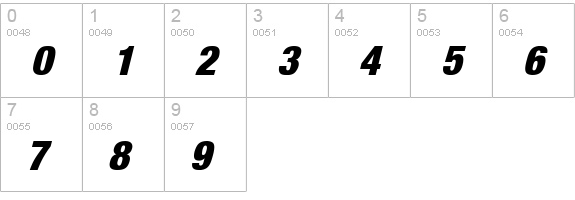
Acmo Display SSi Italic Font Details
Acmo Display SSi Italic is a distinctive, italic variant in the Acmo typeface family \xE2\x80\x94 well suited to design and typography projects.
Acmo Display SSi Italic font is a stylish and modern typeface that exudes sophistication and elegance. Its italicized design adds a touch of flair and personality to any project, making it perfect for headings, quotes, and other display purposes. This versatile font is free to download at FontsMarket.com, allowing you to easily incorporate it into your design projects without any cost. With its sleek curves and clean lines, Acmo Display SSi Italic font is sure to make a statement and elevate the visual appeal of your work. Whether you're designing a website, creating marketing materials, or crafting social media graphics, this font is a must-have addition to your font library.